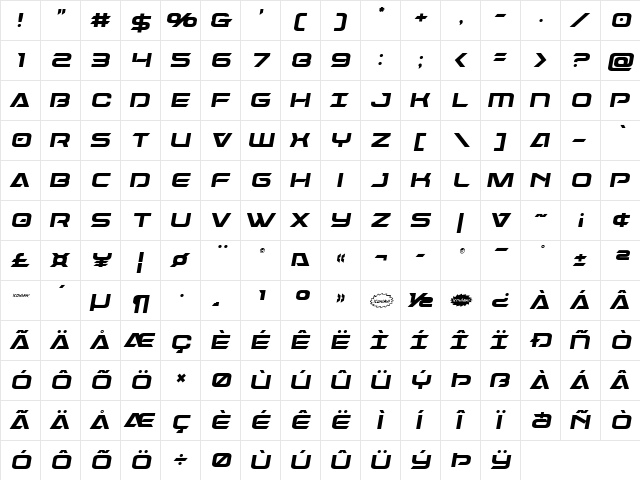
Dameron Semi-Italic Semi-Italic
Design Context for Dameron Semi-Italic Typeface
Dameron Semi-Italic is a composed and adaptable typeface that performs quietly and consistently across a wide range of design contexts. Its italic angle brings a sense of urgency and motion to the letterforms.